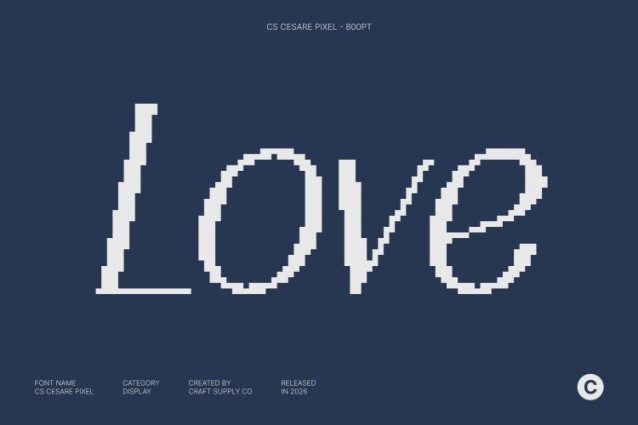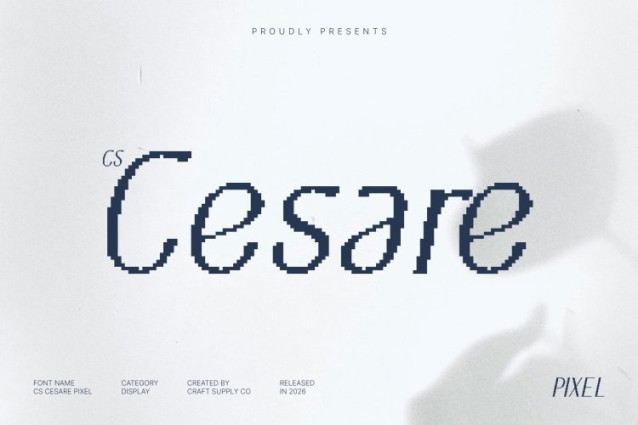
CS Cesare Pixel Font
CS Cesare Pixel Font This is a clean, modern sans serif font designed with a minimalist philosophy and elevated through a subtle pixel-based structure. Its precise construction, smooth curves, and balanced proportions create an elegant visual tone that feels sophisticated, timeless, and confidently modern. The pixel influence is refined and restrained, adding a contemporary digital edge without disturbing its premium aesthetic.
Minimalist Design with Quiet, Pixel-Infused Sophistication
The minimalist approach allows refined details to shine through subtlety. Consistent stroke weight, generous spacing, and clean letterforms are carefully aligned to a pixel grid, resulting in a calm, polished appearance. This understated pixel elegance communicates luxury and professionalism in a quiet, confident way perfect for modern, design-driven brands.
Refined Structure for Professional and Fashion-Forward Applications
Designed to perform beautifully across both digital and print media, this font offers excellent readability with a distinctive modern-tech character. Its refined structure conveys trust, exclusivity, and contemporary sophistication, making it especially suitable for fashion branding, corporate identities, creative studios, and premium digital systems.
Perfect for Luxury Brands, Logos, and Modern Web Design
This font is ideal for luxury branding, minimalist logos, fashion identities, and clean professional websites. The blend of elegant sans serif forms and subtle pixel precision enhances brand presence with clarity, confidence, and a modern digital-luxury feel.